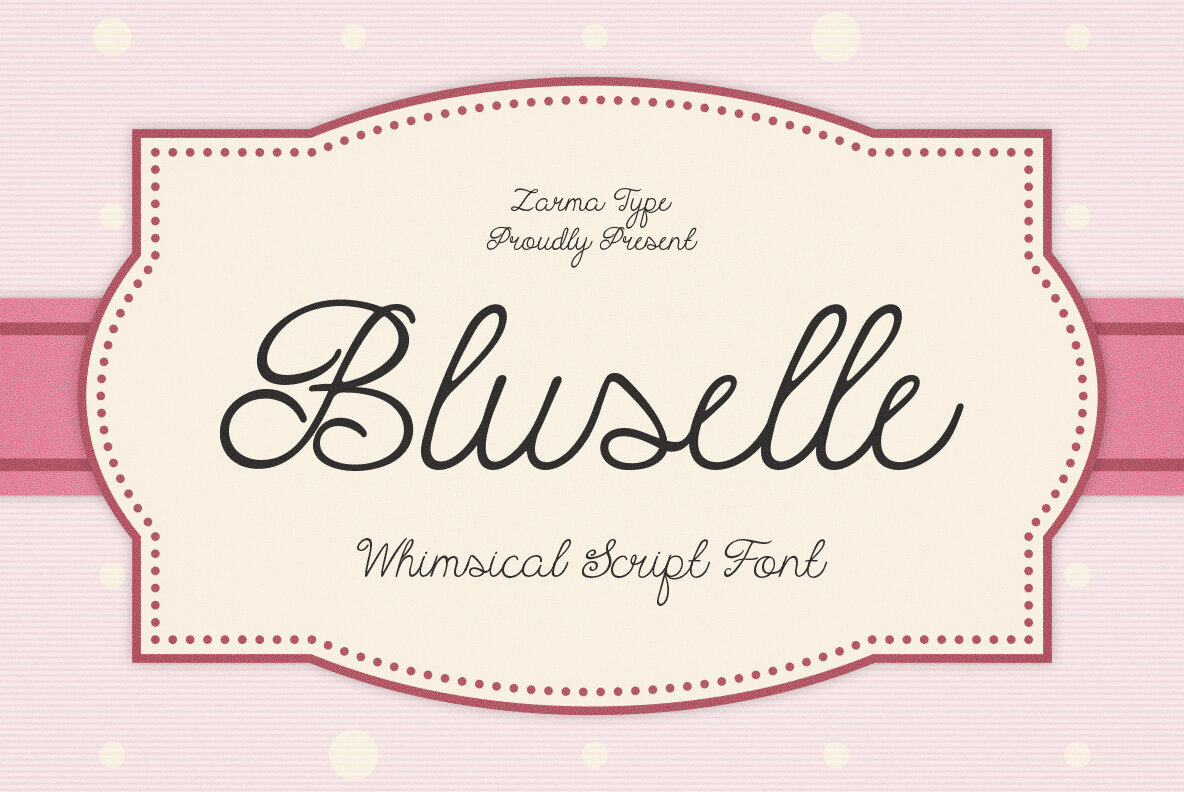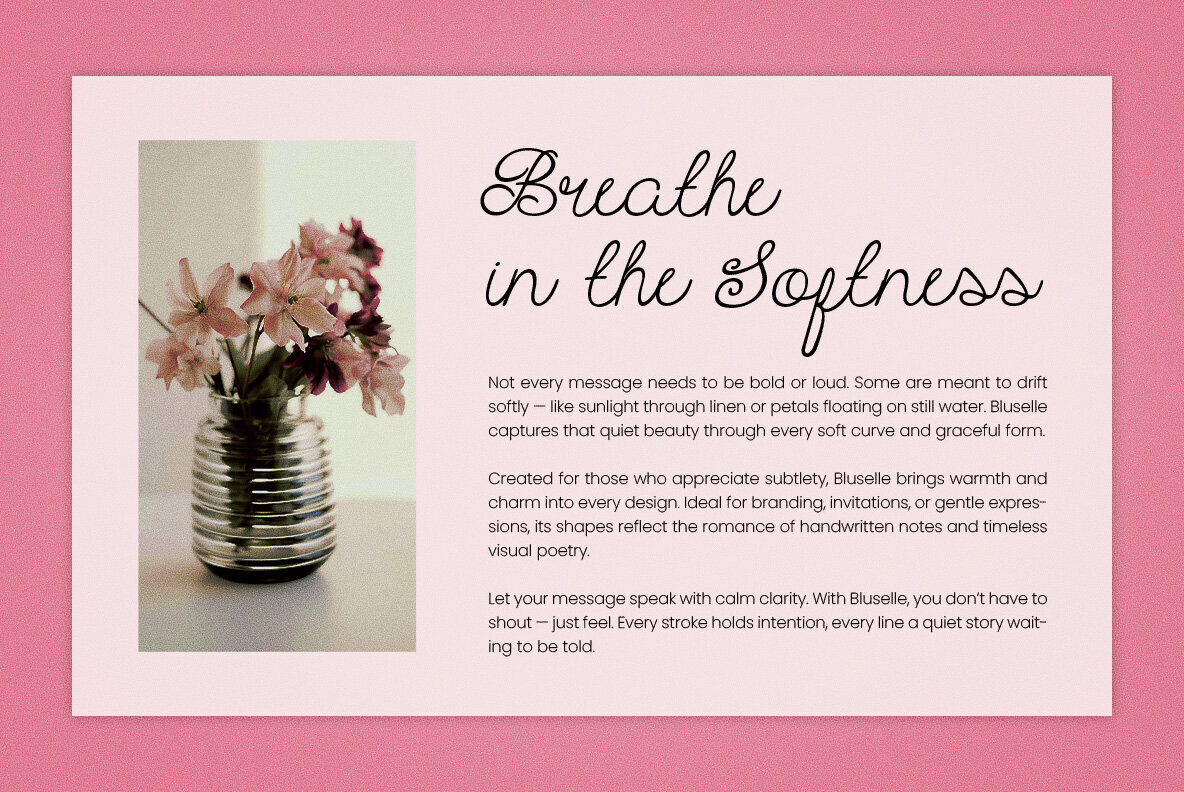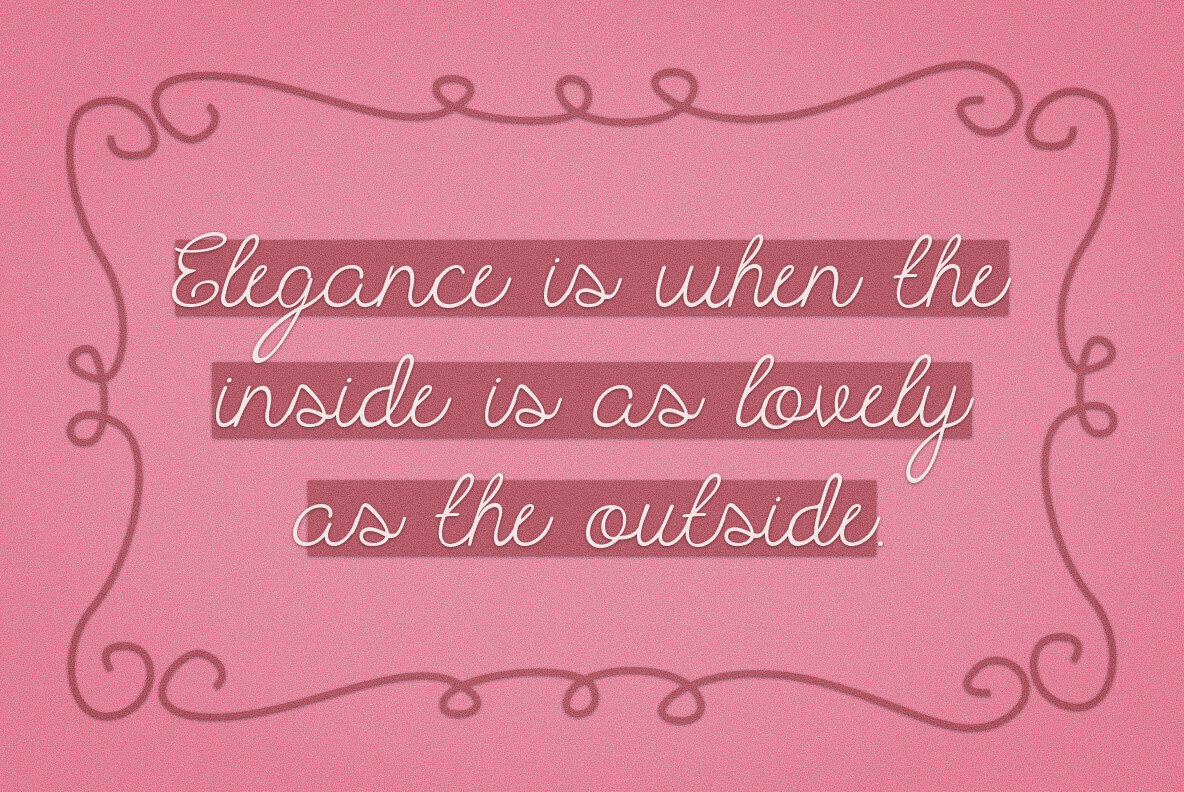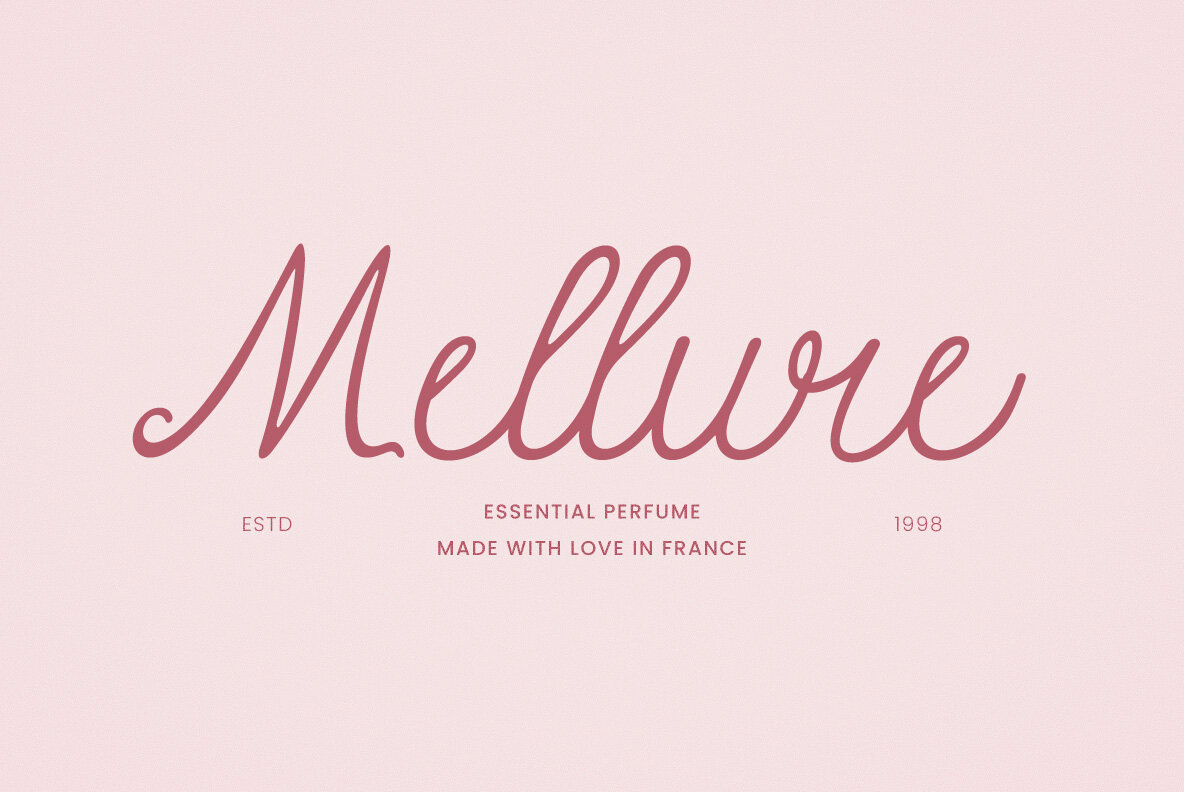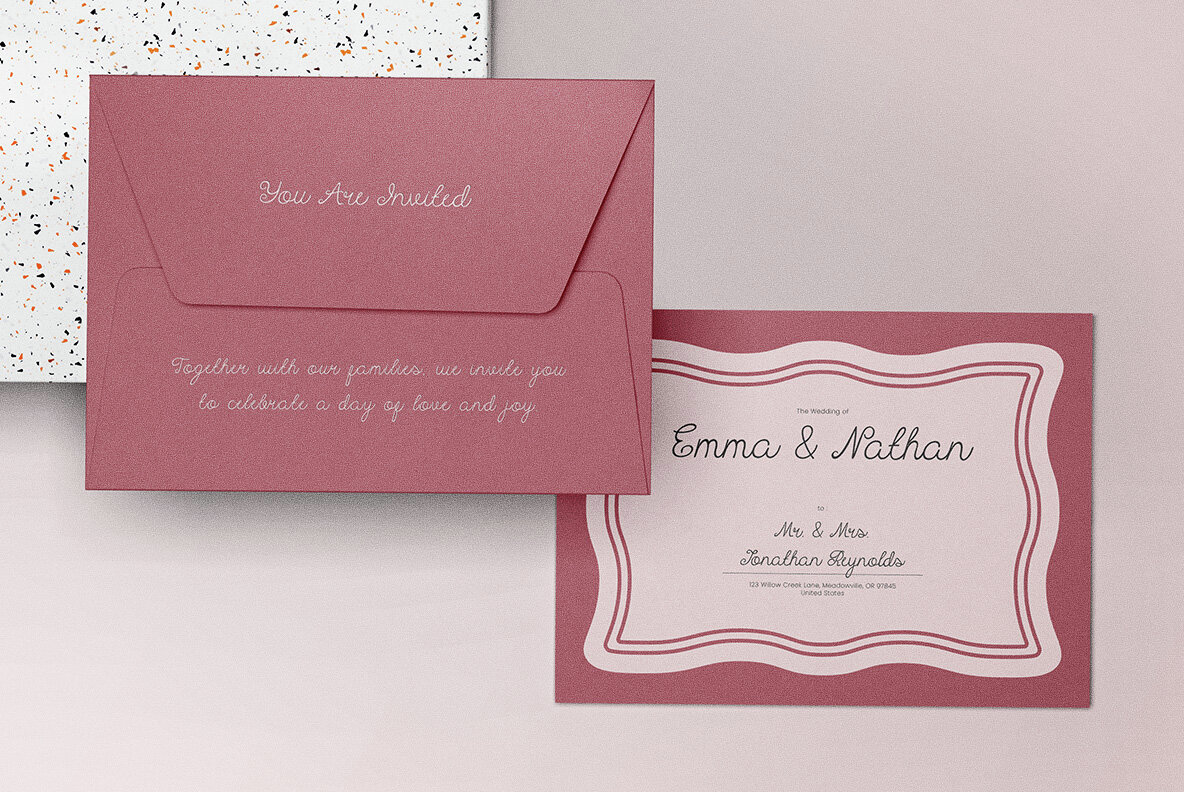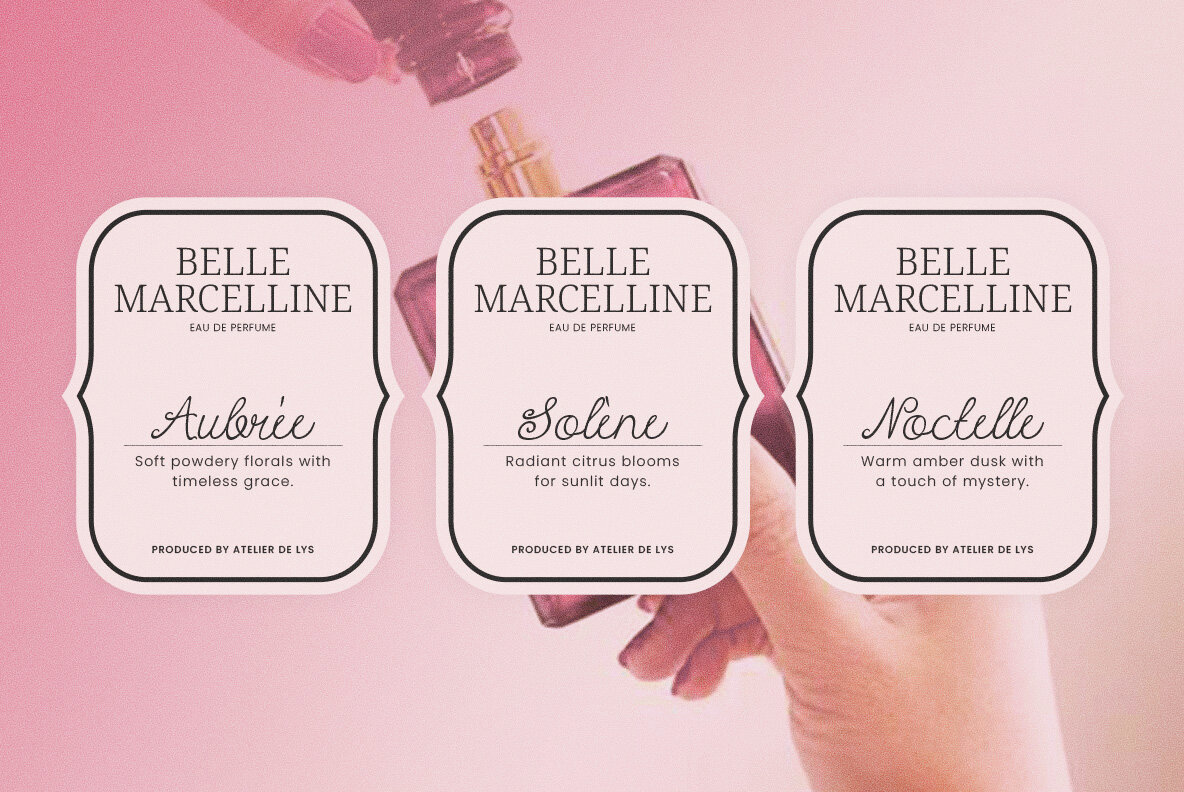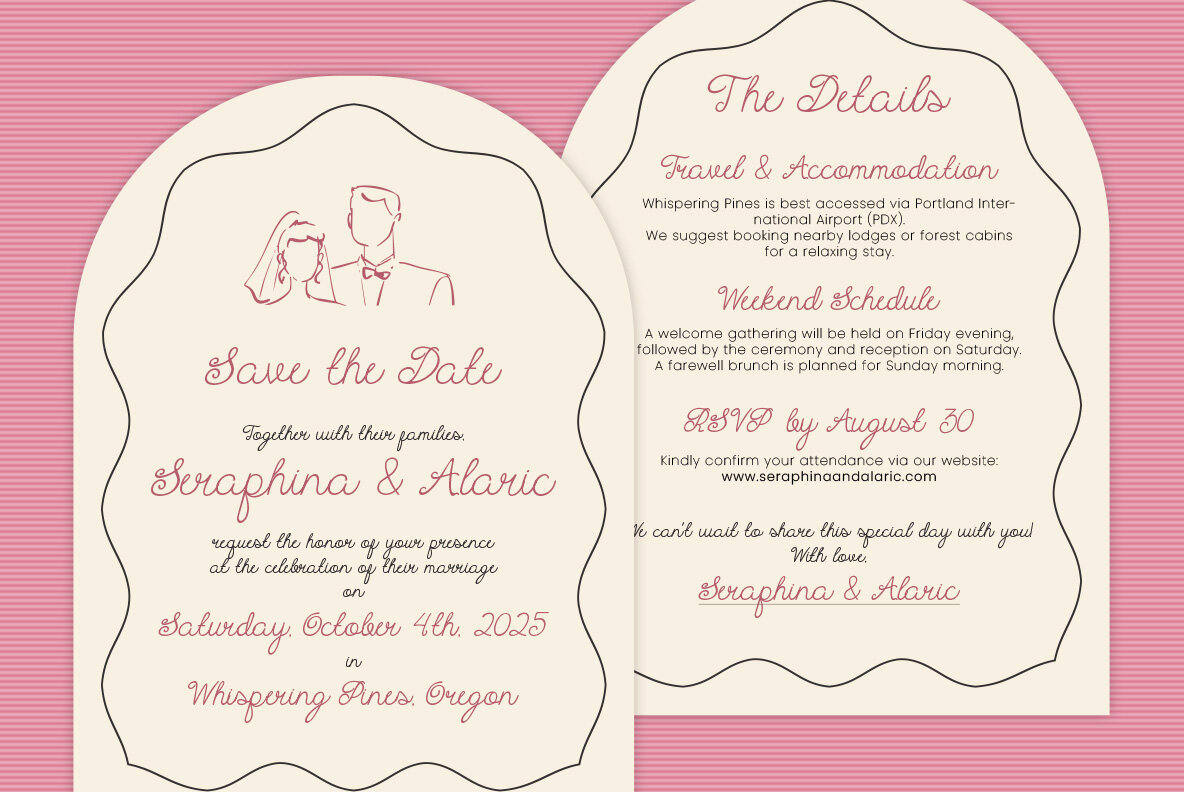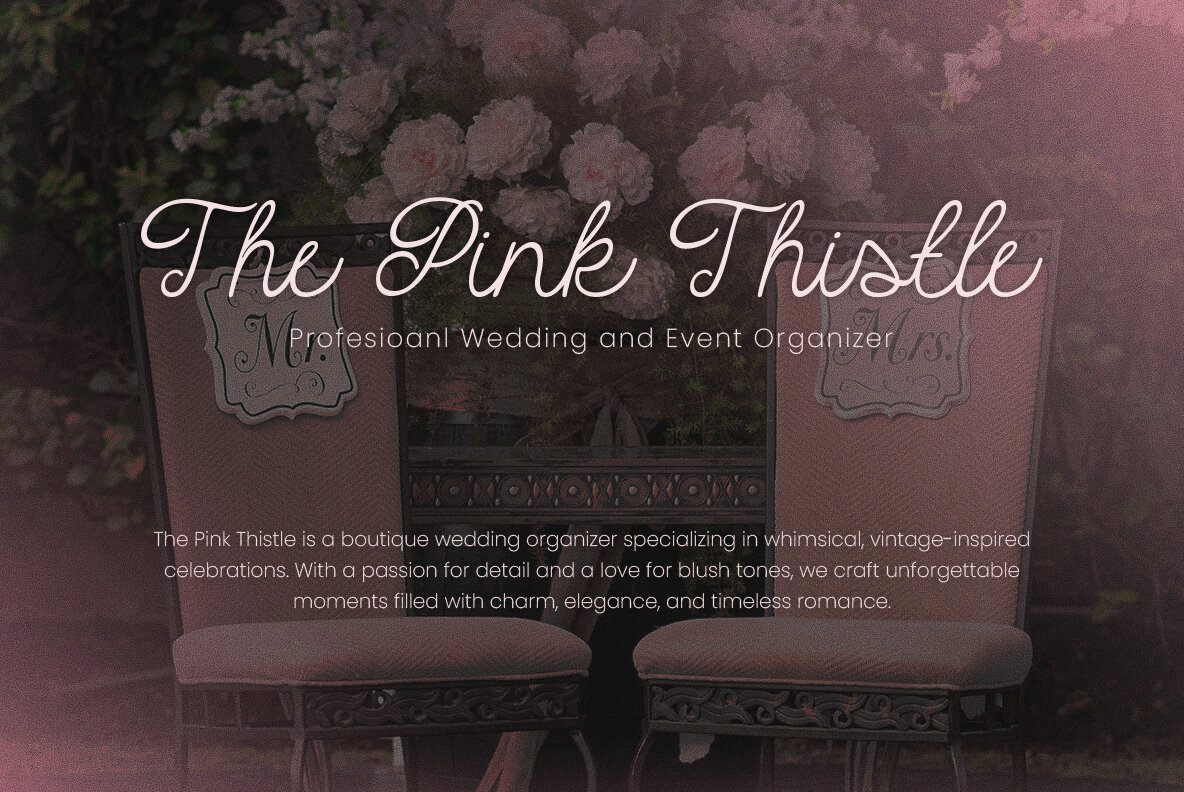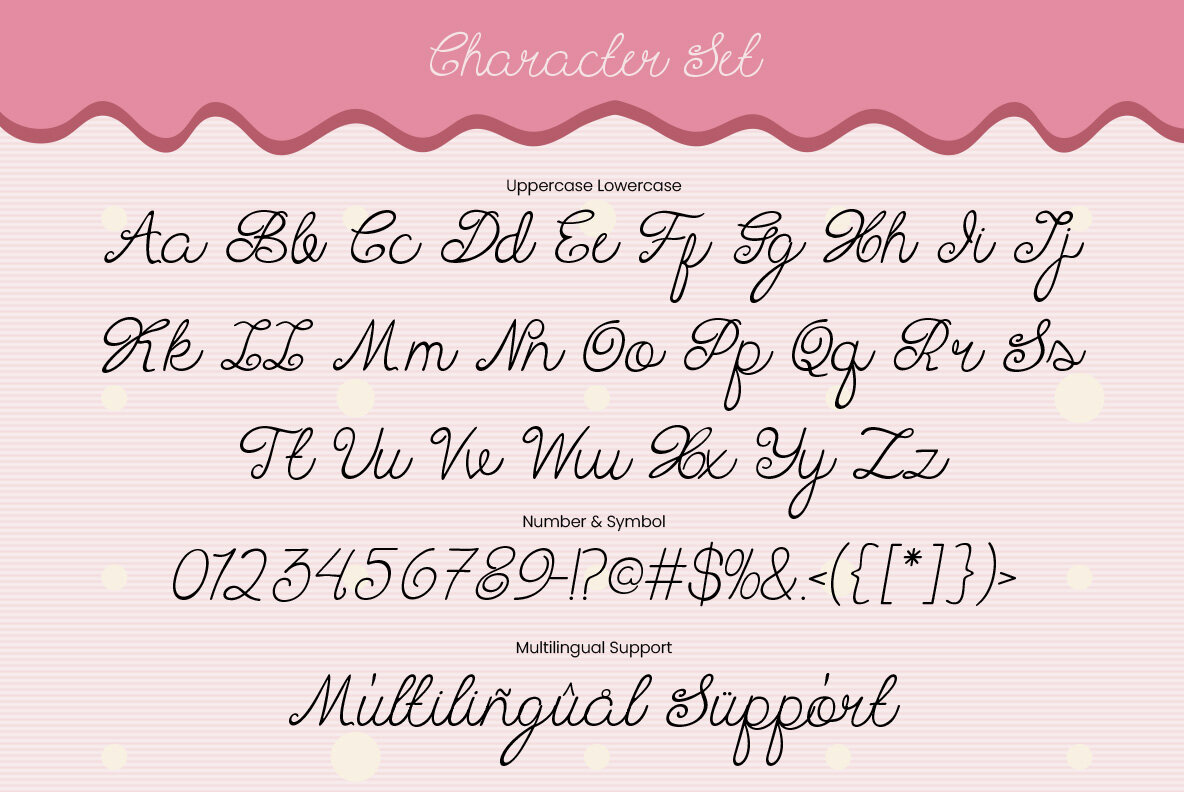
Bluselle Font
Bluselle Regular
Add a touch of romance and sweetness to your design projects with Bluselle. This enchanting script font embodies a delightful balance of playful charm and elegant grace, making it perfect for invitations, packaging, and delicate branding needs. Its flowing letterforms and gentle curves capture the essence of handwritten artistry, delivering a distinctly feminine aesthetic. Bluselle includes both uppercase and lowercase characters, offering flexibility and versatility in your creative pursuits. With multilingual support and a seamless, connected flow, this font excels in functionality while maintaining beauty. Whether you're crafting wedding invites, product labels, or heartfelt quotes, Bluselle infuses your message with warmth and personality.Bluselle: Whimsical Script Font